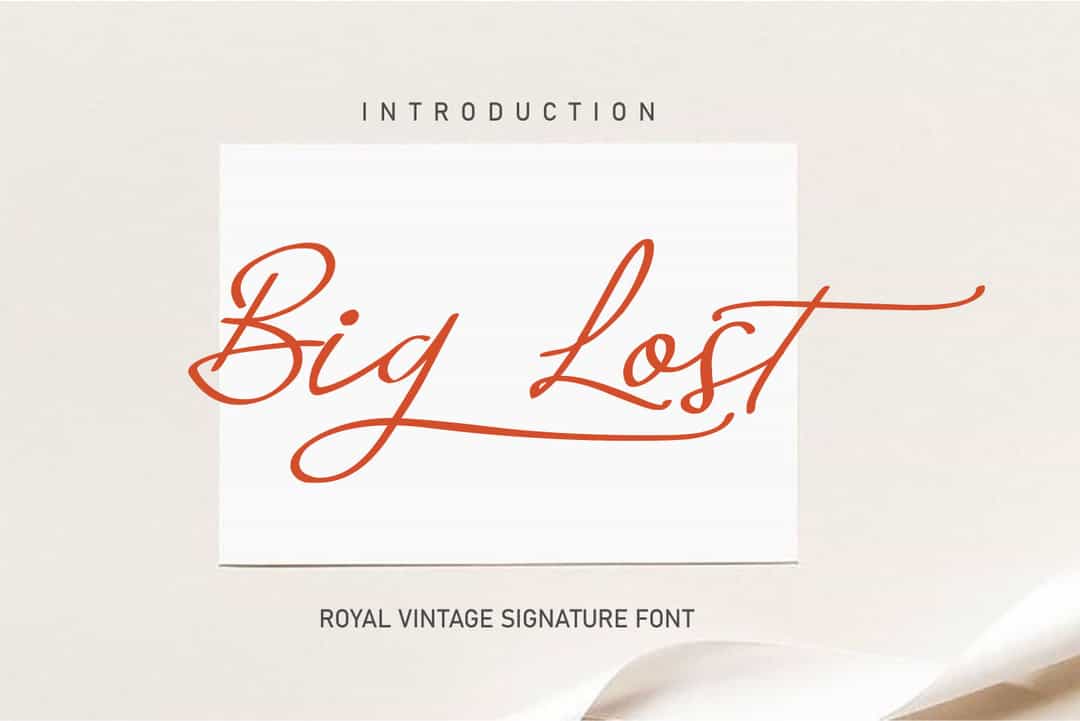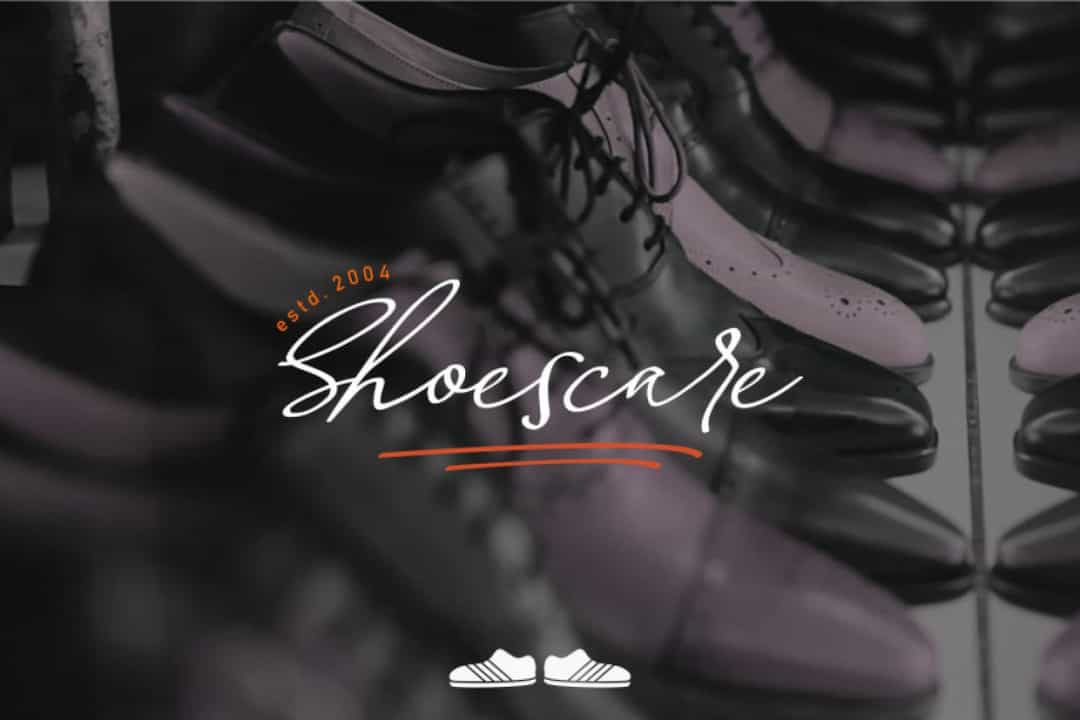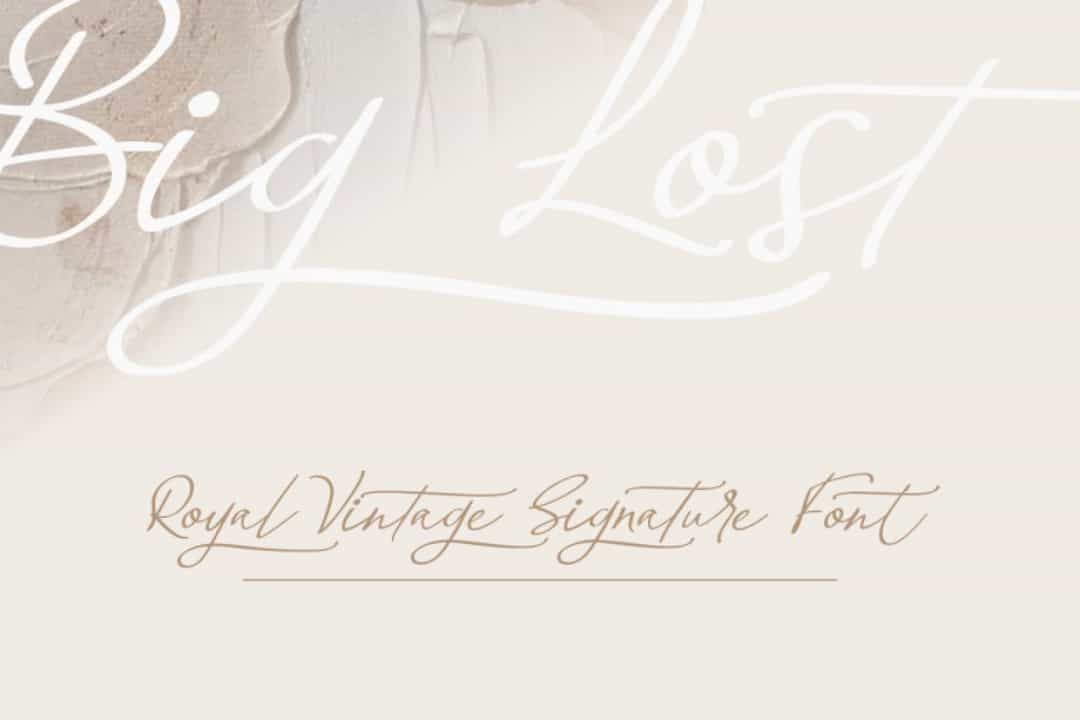
Big Lost is a script font which is hard to resist and has delicate strokes. This font has been developed for headings, where an exceptional font is called for in addition to official purposes. Thanks to its appealing rustic design, the guests will be quite fond of it when you make lovely wedding invitations, nice pieces of art for stationery, attractive social media updates, and sweet greeting cards.